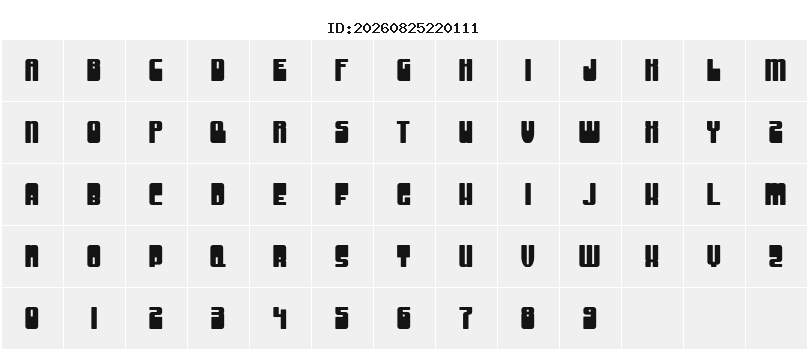
• Font Name: SF Groove Machine Upright
• Full Font Name: SF Groove Machine Upright Bold
About SF Groove Machine Upright.ttf
SF Groove Machine Upright.ttf is a modern, elegant sans-serif font designed for ultimate readability and visual harmony. Perfect for branding, headlines, web design, and print materials.